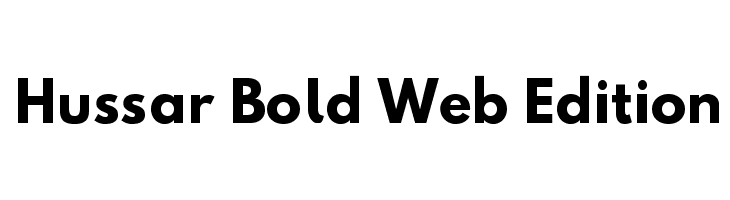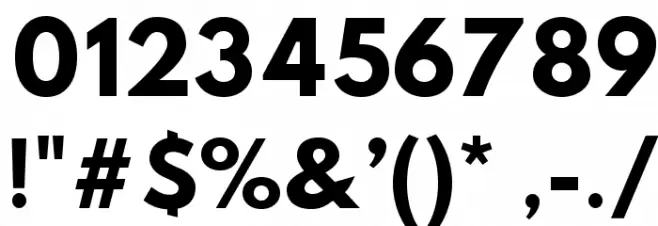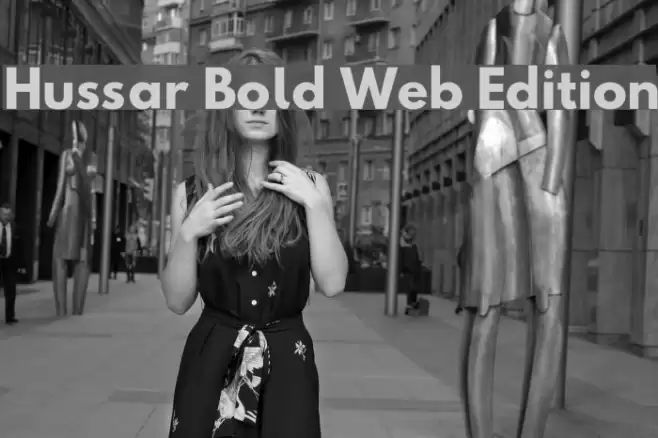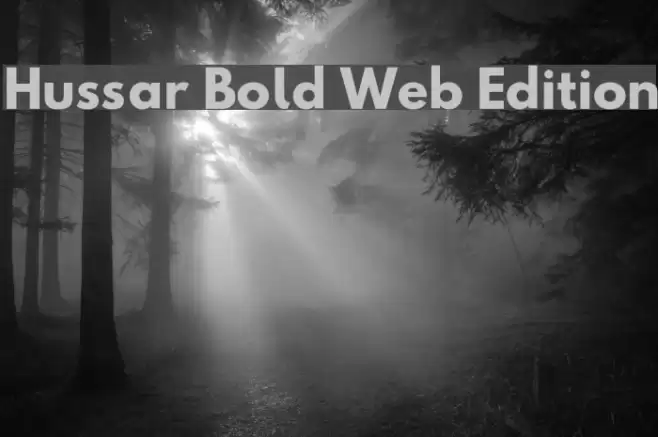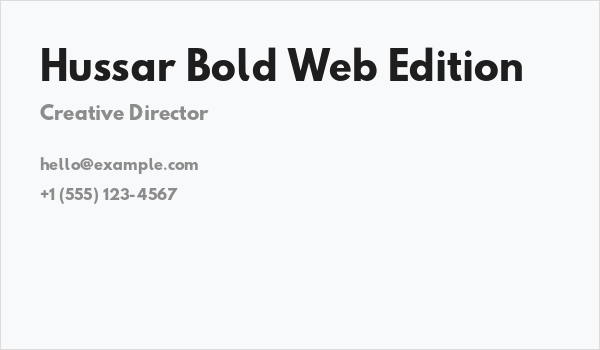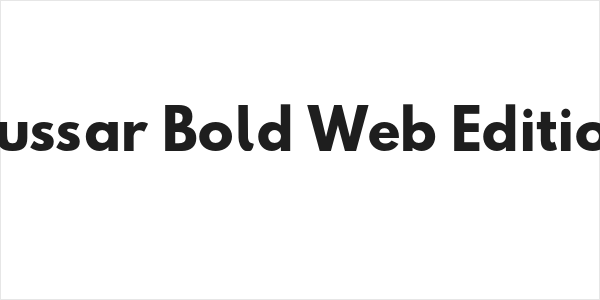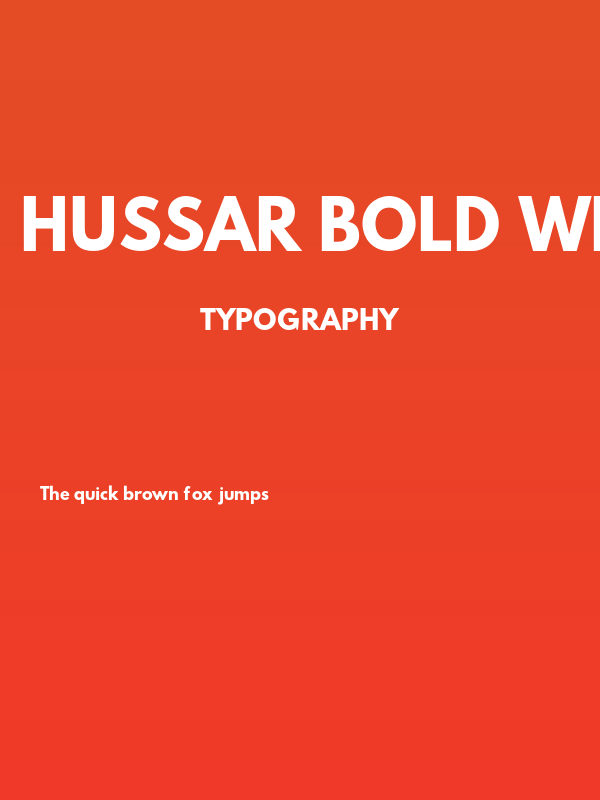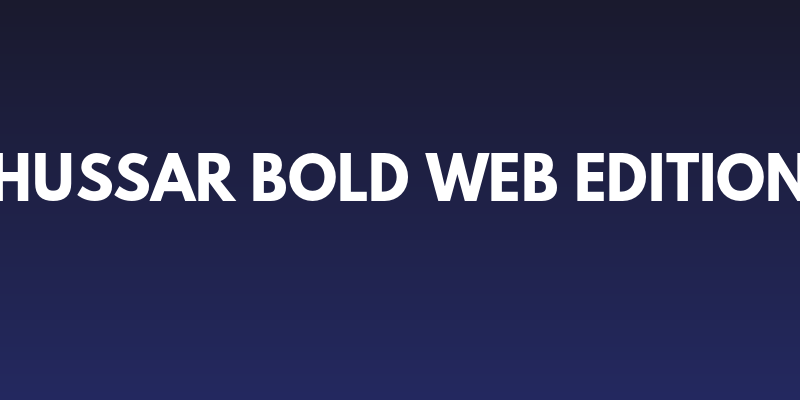
Hussar Bold Web Edition Font
Hussar Bold Web Edition Description
This font features a bold and modern sans-serif design, characterized by clean lines and a strong presence. The uppercase letters are uniform in height, while the lowercase letters maintain a consistent baseline with slight variations in ascender and descender lengths. The numerals are bold and clear, ensuring readability. Special characters are well-defined, maintaining the font's overall aesthetic. The font's geometric structure and even stroke width contribute to its contemporary and professional appearance, making it suitable for a variety of digital and print applications.
| Use Case | Headlines, Logos, Digital content |
| Proposed Projects | Ideal for branding, headlines, digital content, and advertising materials. |